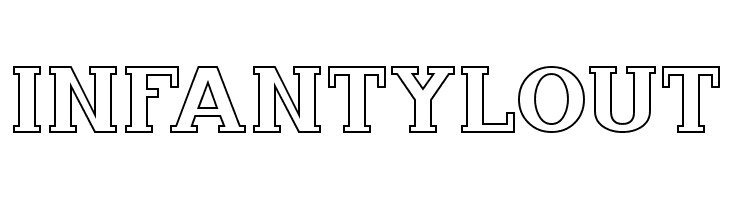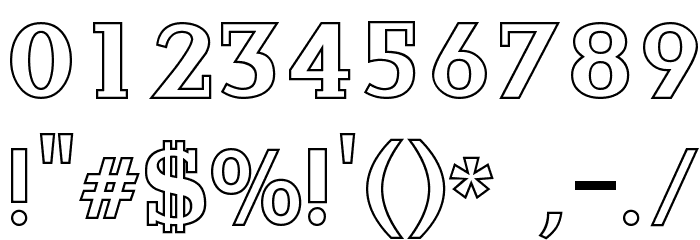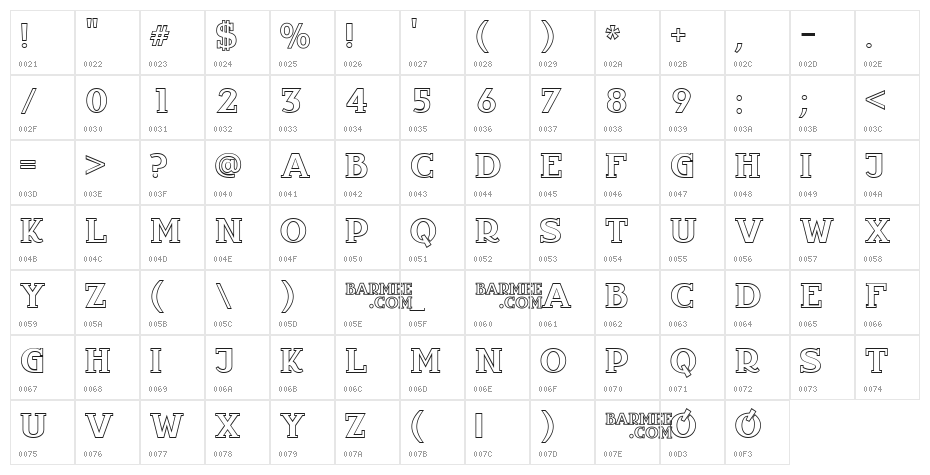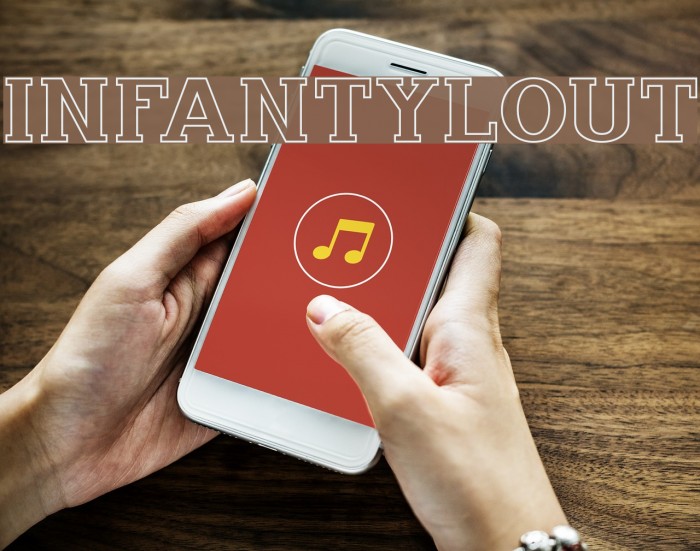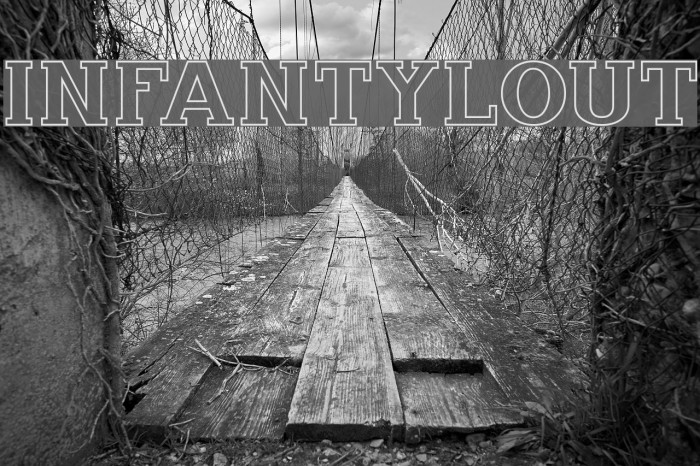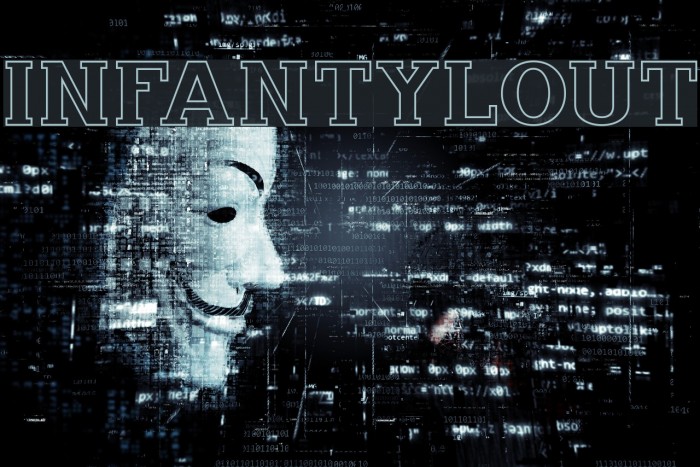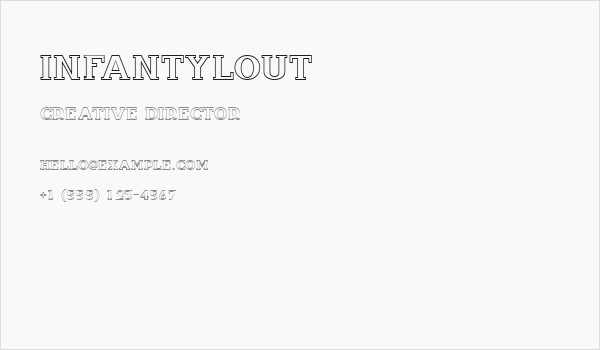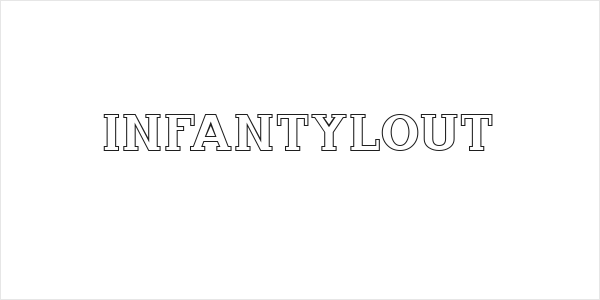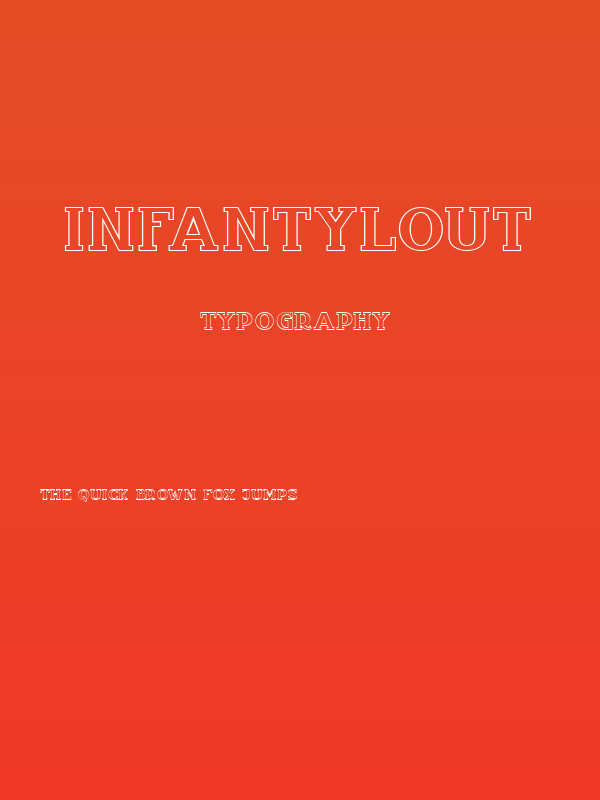
InfantylOut Font
InfantylOut Description
This font features a bold, outlined style with a geometric and structured appearance. The uppercase letters are uniform in height, with a consistent stroke width that gives a clean and modern look. The lowercase letters maintain the same geometric precision, offering a cohesive design throughout the alphabet. The numerals are clear and easy to read, matching the style of the letters. Special characters are included, maintaining the same outlined and bold characteristics. This font is ideal for projects that require a strong visual impact, such as posters, headlines, and branding materials.
| Proposed Projects | Ideal for posters, headlines, branding, and any design needing a strong visual impact. |